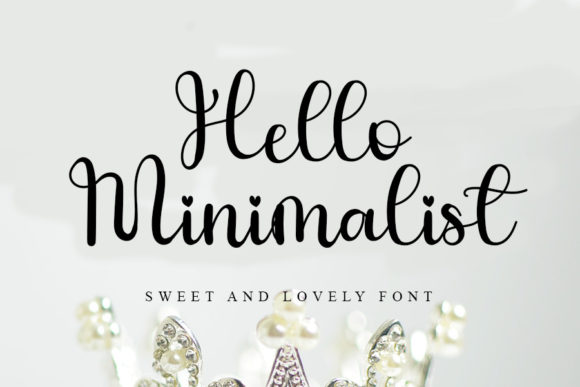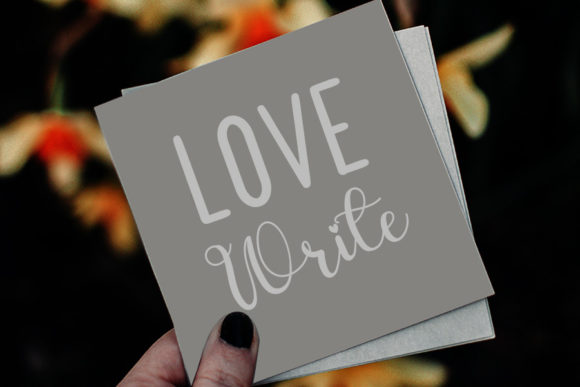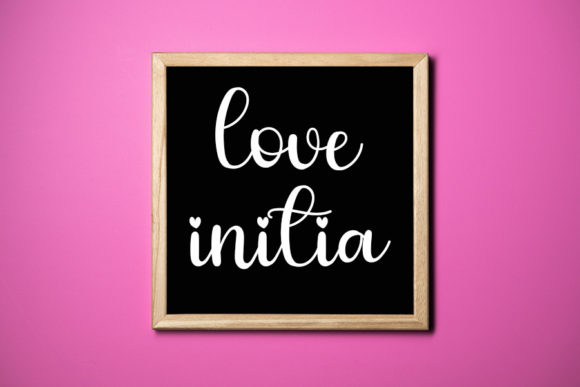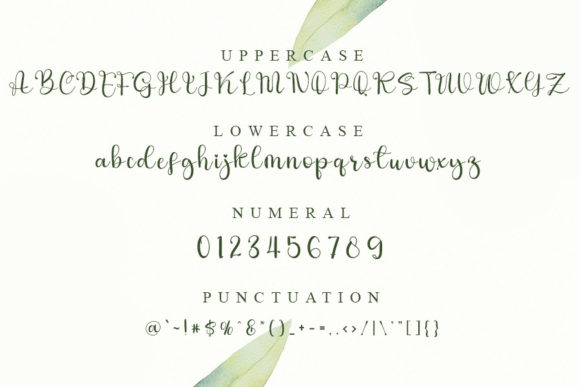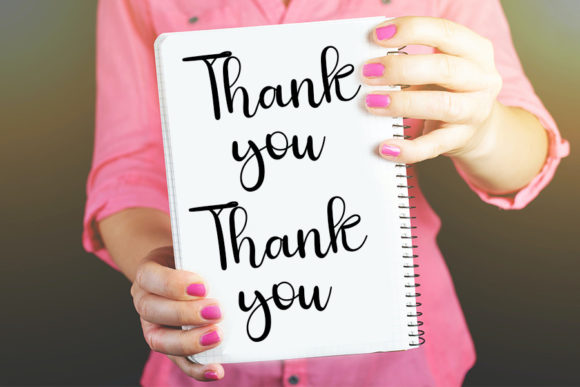
Hello Minimalist Font
About Hello Minimalist Font
Hello Minimalist is a romantic and sweet calligraphy typeface that exudes elegance and charm. With its characters dancing along the baseline, this font brings a touch of playfulness and sophistication to your design projects. It adds a luxurious spark that elevates the overall look and feel of your creations.
The romantic and sweet nature of Hello Minimalist sets it apart and adds a sense of warmth and beauty to your designs. The font’s calligraphic characters create a visually captivating composition that exudes grace and elegance. It adds a touch of romanticism and luxury, making your design projects stand out.
Hello Minimalist’s versatility allows it to be applied to various projects, ensuring that it complements the desired style and theme. Whether you’re designing wedding invitations, branding materials, social media graphics, or any other design that requires a romantic touch, this font adapts seamlessly and adds a touch of luxury.
By incorporating Hello Minimalist into your designs, you infuse them with a sense of romance and sophistication. The font’s playful characters and elegant flow create a visually captivating look that captures attention and leaves a lasting impression. Embrace the romantic charm of Hello Minimalist and notice how it enhances the look and feel of your design projects, adding a touch of luxury and elegance to each creation.
In summary, Hello Minimalist is a romantic and sweet calligraphy typeface that adds a luxurious spark to your design projects. Its characters dancing along the baseline bring a playful and sophisticated touch to your creations. Embrace the romantic allure of Hello Minimalist and let it enhance the look and feel of your wedding invitations, branding materials, social media graphics, and more, adding a touch of romance and luxury to each design.